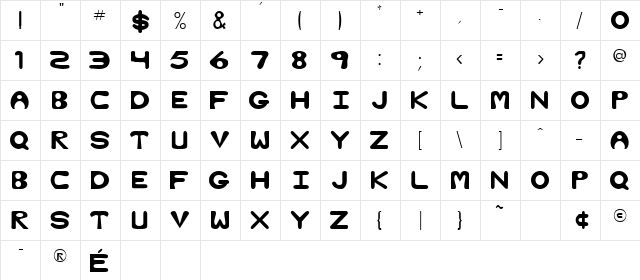
Bubble Regular
Design Context for Bubble Typeface
Bubble has an approachable, lighthearted character — its loose, expressive forms are well-suited to children's content, casual branding, and fun-first design.
Font Pairing: Pairs well with a rounded or humanist sans for body copy, maintaining the friendly tone without relying on Bubble to carry extended reading.
Pro Tip: Avoid using Bubble for long passages of text — it works best for headlines, labels, and short calls to action.